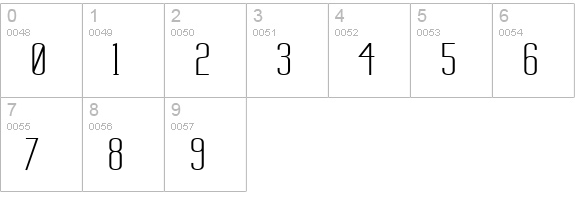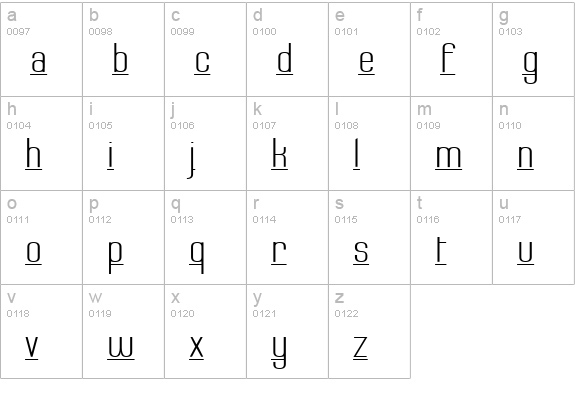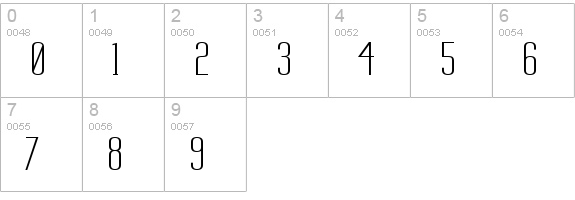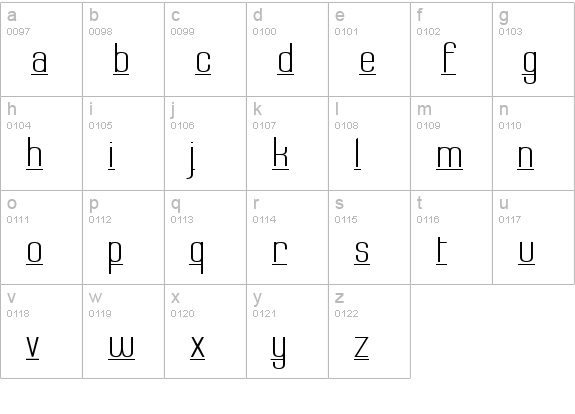
Introducing Labtop Down Under, a stunningly modern font that is perfect for all your creative endeavors. With its sleek and sophisticated design, this font is sure to make a bold statement. Labtop Down Under is not only visually appealing, but it also offers a range of versatility, making it suitable for various projects such as branding, logo design, advertisements, and more. One of the best things about Labtop Down Under is that it is available for free! Yes, you heard that right. This incredible font can be freely downloaded from FontsMarket.com, allowing you to add a touch of elegance to your designs without breaking the bank. Whether you're a professional designer or a novice, Labtop Down Under provides an excellent opportunity to enhance your creations and take them to the next level. Labtop Down Under boasts a clean and minimalist aesthetic, with its smooth lines and balanced proportions. Its modern yet timeless design ensures that your projects will always look fresh and contemporary. The font's versatility shines through as it effortlessly adapts to various design styles, whether you're aiming for a sleek and sophisticated look or a more playful and whimsical vibe. With Labtop Down Under, you have access to a wide range of characters, including uppercase and lowercase letters, numerals, punctuation marks, and special symbols. This comprehensive character set allows you to fully express your creativity and create visually stunning compositions. Additionally, the font is available in multiple weights, providing even more flexibility and options for your designs. So, why wait? Download Labtop Down Under today from FontsMarket.com and unlock a world of design possibilities. Whether you're designing a logo for a new business, creating eye-catching social media graphics, or crafting a professional-looking website, Labtop Down Under is the perfect companion to elevate your projects to new heights. Don't miss out on this incredible opportunity to enhance your designs with this exceptional font, available for free at FontsMarket.com.